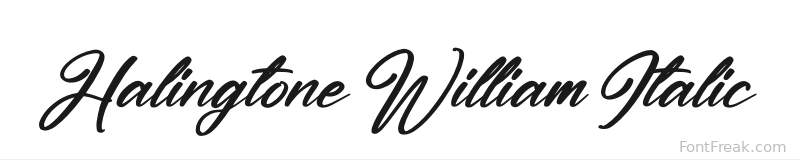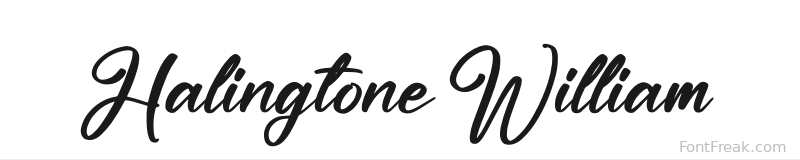
Halingtone William
Halingtone William Italic
About Halingtone William
Halingtone William by Perspectype Studio is a striking script font that embodies elegance and sophistication. Released in 2021 as freeware, this font features a fluid, cursive style characterized by its graceful, sweeping strokes and a delicate balance of thick and thin lines. The contrast in stroke weight adds a dynamic touch, making it visually captivating while maintaining readability. Its generous spacing gives each letter room to breathe, enhancing its overall appeal in various design contexts.
This font is particularly well-suited for a range of creative applications. Its charming aesthetic makes it an excellent choice for wedding invitations, where a romantic and personal touch is desired. It can also elevate the design of movie posters, lending a sense of artistry and emotion that draws the viewer in. Furthermore, Halingtone William works beautifully in restaurant menus, adding a flair of sophistication that enhances the dining experience. Small business owners can utilize this font in branding materials, from logos to promotional flyers, to convey a distinct personality and attract customers. Content creators looking to add a unique touch to their social media posts or blogs will find this font equally appealing.
The target audience for Halingtone William includes graphic designers seeking versatile typefaces, small business owners aiming to establish a memorable brand identity, and content creators wanting to enhance their visual storytelling. With its unique characteristics and broad appeal, the Halingtone William font free download provides a valuable resource for anyone looking to add a touch of elegance to their projects. Its combination of style and functionality makes it a standout choice in the world of typography, ensuring that your designs leave a lasting impression.